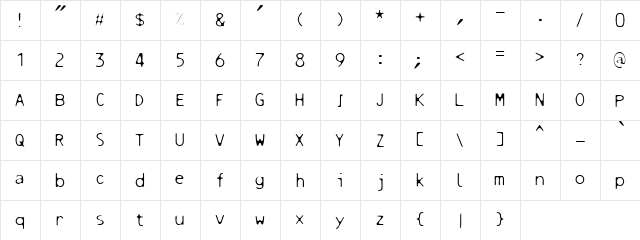
Resbaloso Regular
Design Context for Resbaloso Typeface
Resbaloso takes a measured approach to typography — its balanced proportions and neutral character make it a reliable workhorse for both digital and print work.